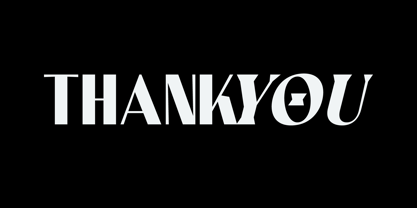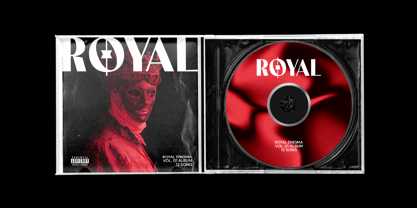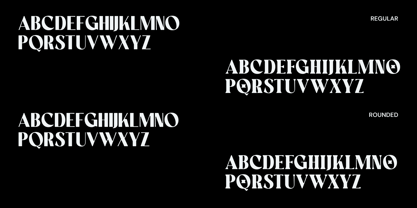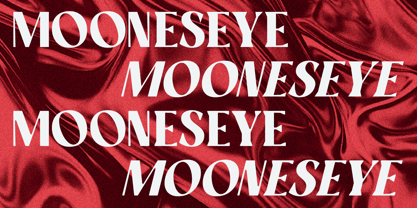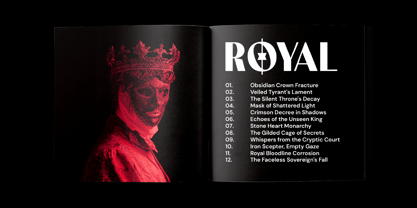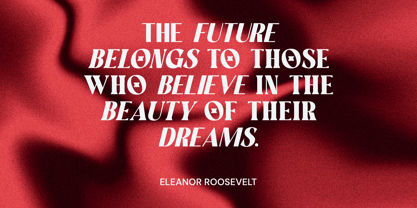
Crione Mixed
by Mooneseye Studio
The Crione Mixed Font Family was designed by Elhaq Farid and published by Mooneseye Studio. Crione Mixed contains 4 styles and family package options. More about this family
Crione is a captivating mixed display font that offers a compelling duality and versatile design options. Featuring a bold, modern sans-serif uppercase and an elegant, slightly gothic serif lowercase, Crione creates a striking visual contrast. What sets Crione apart are its two distinct edge options: sharp edges for a crisp, contemporary feel, and rounded edges for a softer, more approachable aesthetic.
This flexibility makes Crione perfect for a wide range of graphic design needs, including impactful posters, eye-catching magazine layouts, and distinctive band album titles. Its modern sensibility, subtly infused with a hint of gothic undertones, allows it to stand out and create memorable designs. Whether you choose the sharp, precise lines or the smooth, rounded corners, Crione delivers a unique and powerful visual statement.
Designers: Elhaq Farid
Foundry: Mooneseye Studio